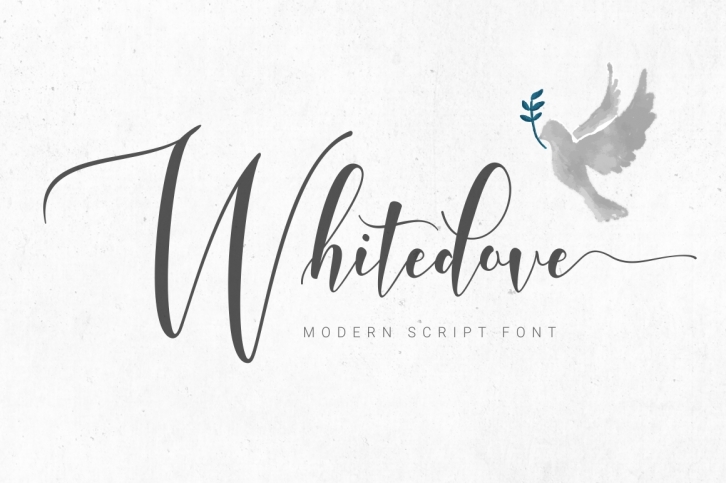
Whitedove Modern Script is a trendy and unique font with an authentic style. It was designed by FadeLine Studio and it's a great choice for creative people who need such a font. It was released on June 4, 2017 and the file size is 6.35 MB. Whitedove Modern Script will add an organic vibe to any design idea!